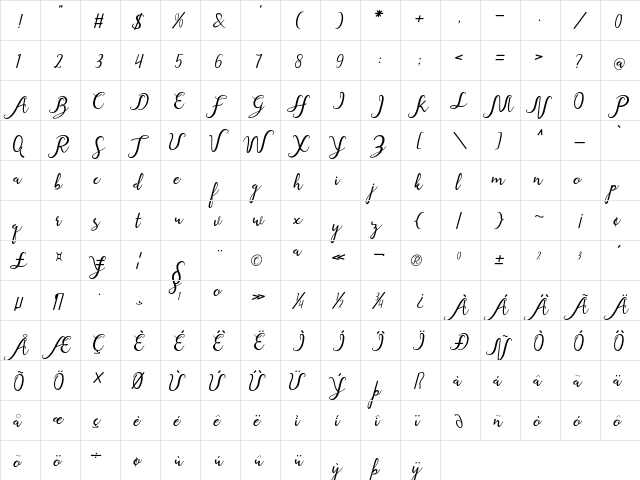
Cindy love art design Font Preview
Cindy love art design
Cindy love art design Font Details
Design Context for Cindy love Typeface
Cindy love is a composed and adaptable typeface that performs quietly and consistently across a wide range of design contexts.